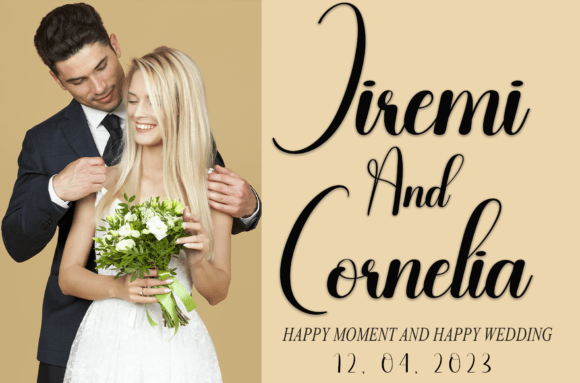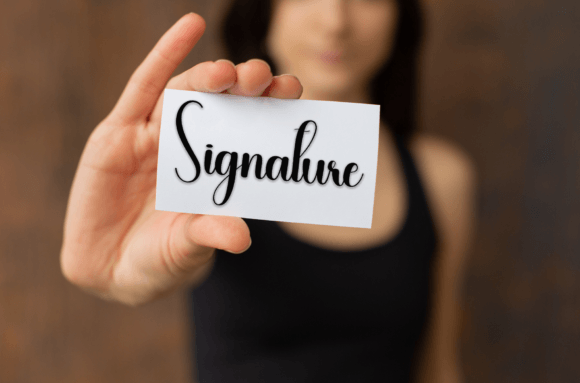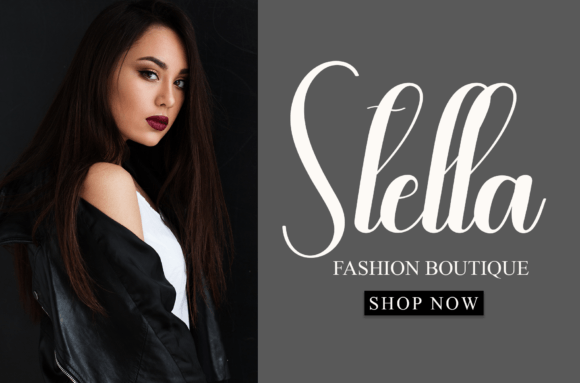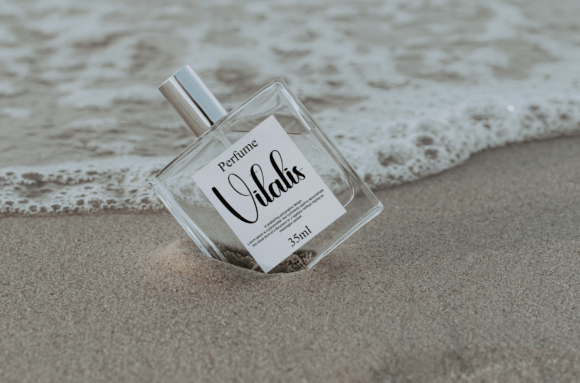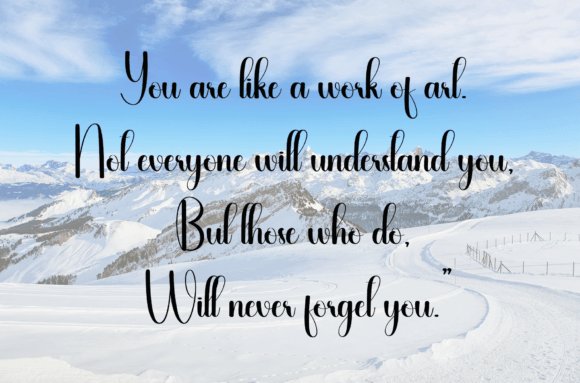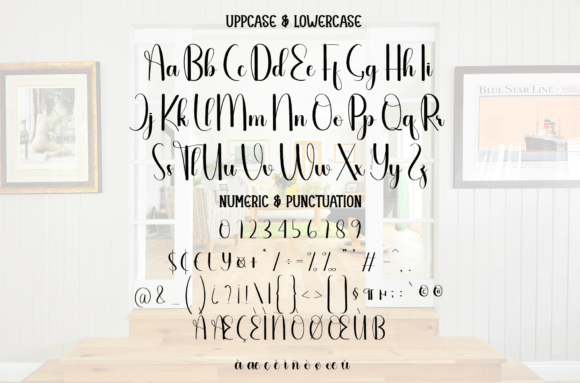
Dwelling Font: The Sweet and Friendly Handwritten Font for Your Creative Projects
Are you a designer or crafter looking for a font that can add a touch of warmth and personality to your creative projects? Look no further than Dwelling Font! This sweet and friendly handwritten font is perfect for writing wedding invitations, cards, or any other design that might need a fun touch. In this article, we’ll take a closer look at Dwelling Font, its features, and how you can use it to elevate your designs.
What is Dwelling Font?
Dwelling Font is a beautiful, handwritten font that exudes a sense of freshness and neatness. Its sweet and friendly vibe makes it perfect for designs that require a personal touch. Whether you’re creating wedding invitations, greeting cards, or social media graphics, Dwelling Font is sure to add a touch of whimsy and charm to your work.
Key Features of Dwelling Font
- Handwritten style: Dwelling Font has a beautiful, handwritten style that gives it a personal and unique touch.
- Fresh and neat: The font is incredibly fresh and neat, making it perfect for designs that require a clean and elegant look.
- Sweet and friendly vibe: Dwelling Font has a sweet and friendly vibe that makes it perfect for designs that require a touch of warmth and personality.
- Versatile: This font is incredibly versatile and can be used for a wide range of designs, from wedding invitations to social media graphics.
Why Use Dwelling Font?
So, why should you use Dwelling Font for your creative projects? Here are just a few reasons:
- Adds a personal touch: Dwelling Font adds a personal touch to your designs, making them stand out from the crowd.
- Easy to read: The font is incredibly easy to read, making it perfect for designs that require a lot of text.
- Customizable: Dwelling Font is highly customizable, allowing you to adjust the font size, color, and style to suit your design needs.
- Perfect for wedding designs: The font is perfect for wedding designs, including invitations, programs, and other wedding-related materials.
Design Ideas Using Dwelling Font
So, what can you create with Dwelling Font? Here are just a few design ideas to get you started:
- Wedding invitations: Use Dwelling Font to create beautiful, unique wedding invitations that set the tone for the big day.
- Greeting cards: Use the font to create personalized greeting cards for special occasions, such as birthdays, anniversaries, and holidays.
- Social media graphics: Use Dwelling Font to create fun and engaging social media graphics that showcase your personality and style.
- Blog posts: Use the font to add a touch of personality to your blog posts and make them stand out from the crowd.
In conclusion, Dwelling Font is a beautiful, handwritten font that’s perfect for designers and crafters looking to add a touch of warmth and personality to their creative projects. With its sweet and friendly vibe, fresh and neat style, and versatility, Dwelling Font is sure to become a favorite in your font library. So why not give it a try and see what amazing designs you can create?